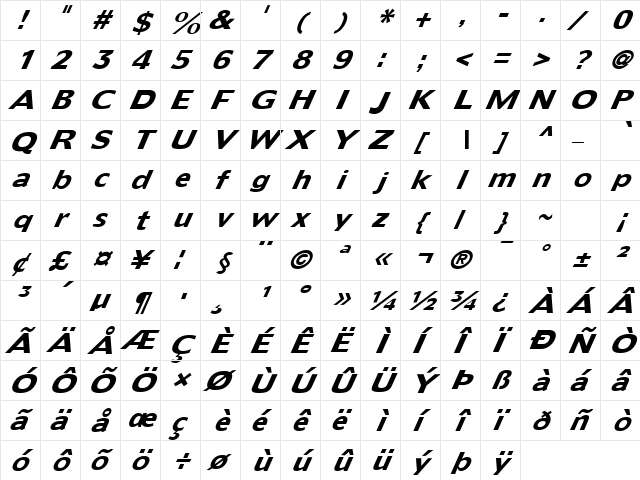
FZ BASIC 55 ITALIC Normal
Design Context for FZ BASIC 55 ITALIC Typeface
FZ BASIC 55 ITALIC is a composed and adaptable typeface that performs quietly and consistently across a wide range of design contexts. The slanted form adds forward momentum and visual energy.
Pro Tip: Use FZ BASIC 55 ITALIC for emphasis, pull quotes, and subheadings where its slanted energy can add rhythm to the layout.